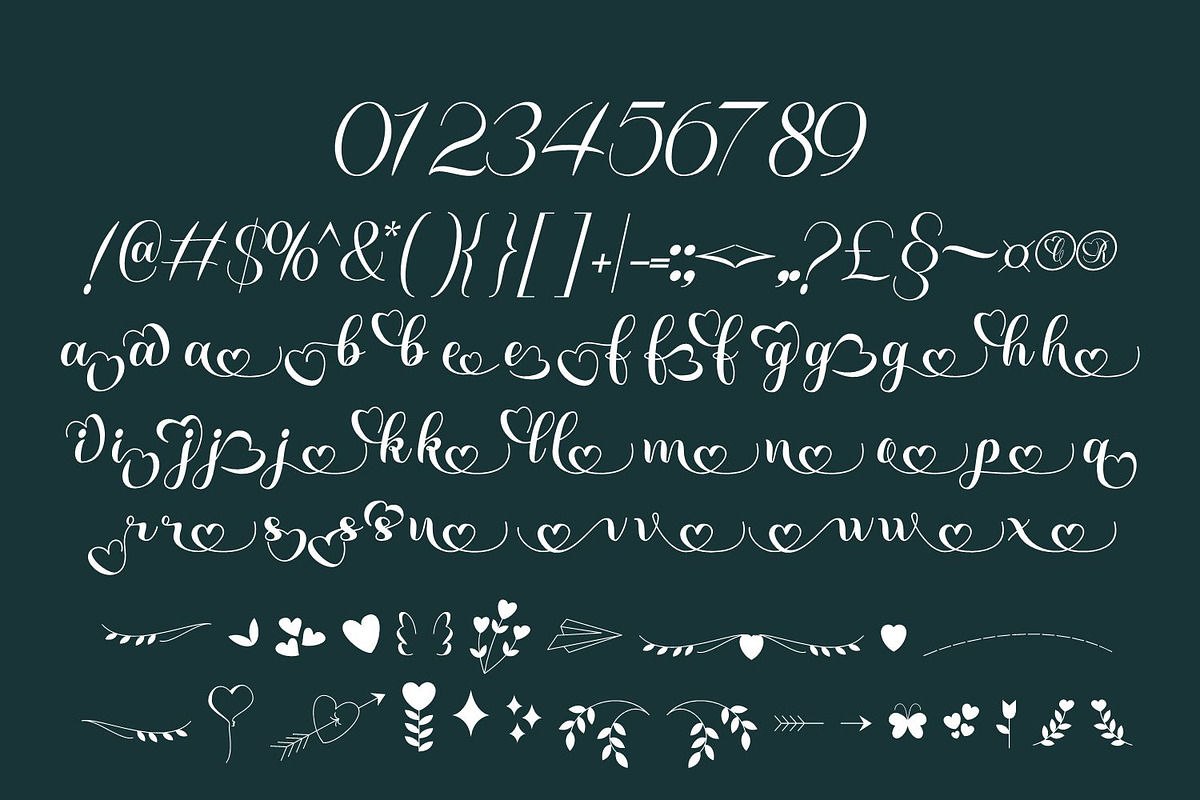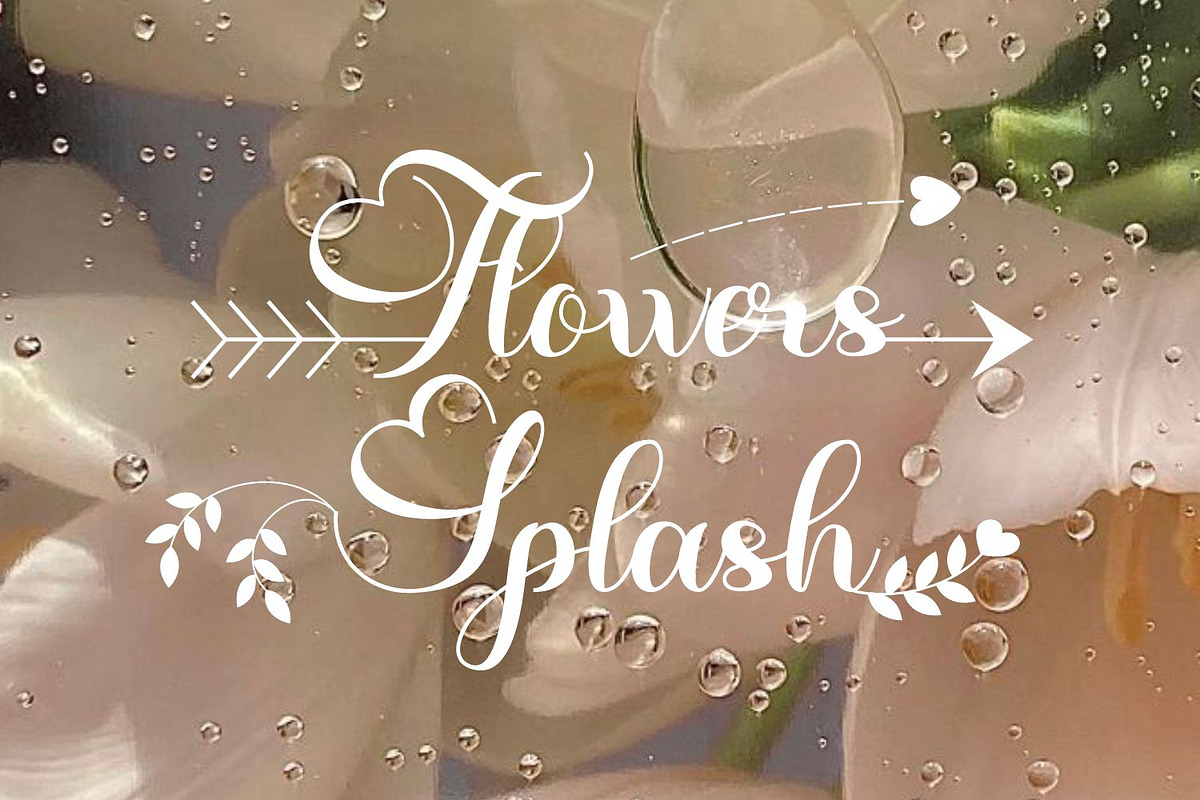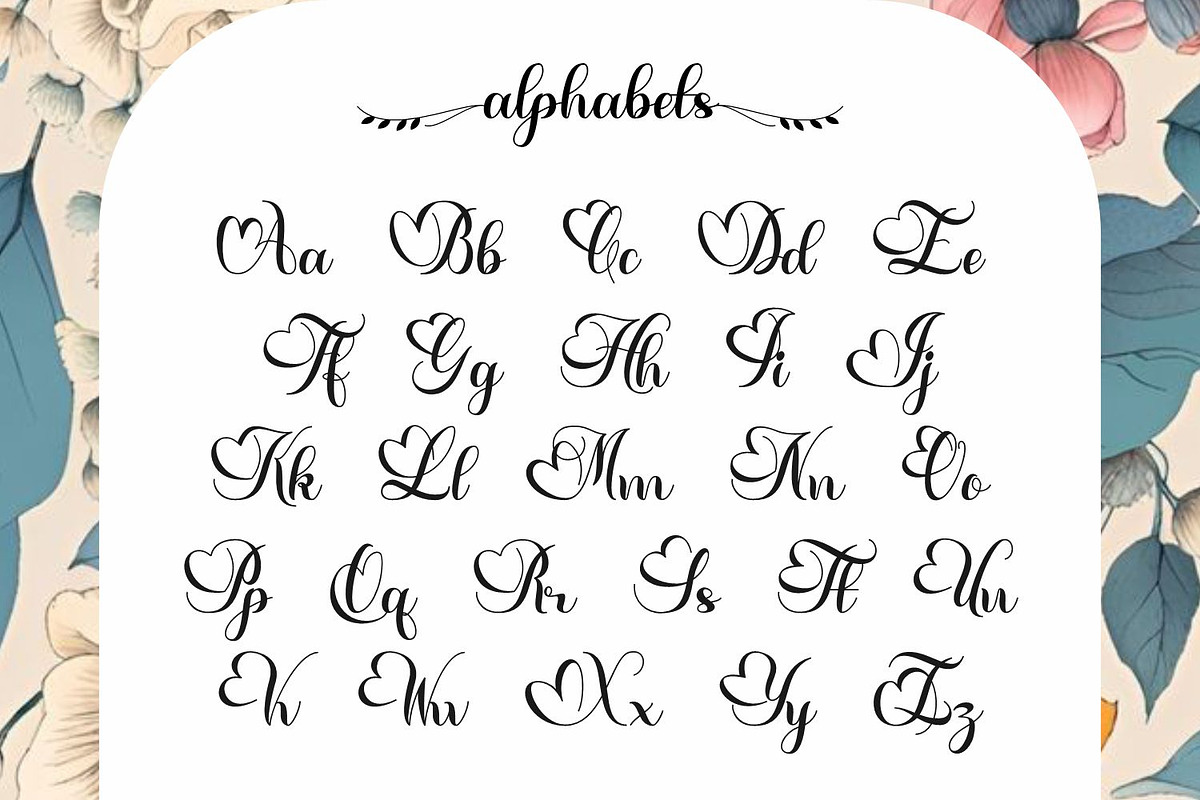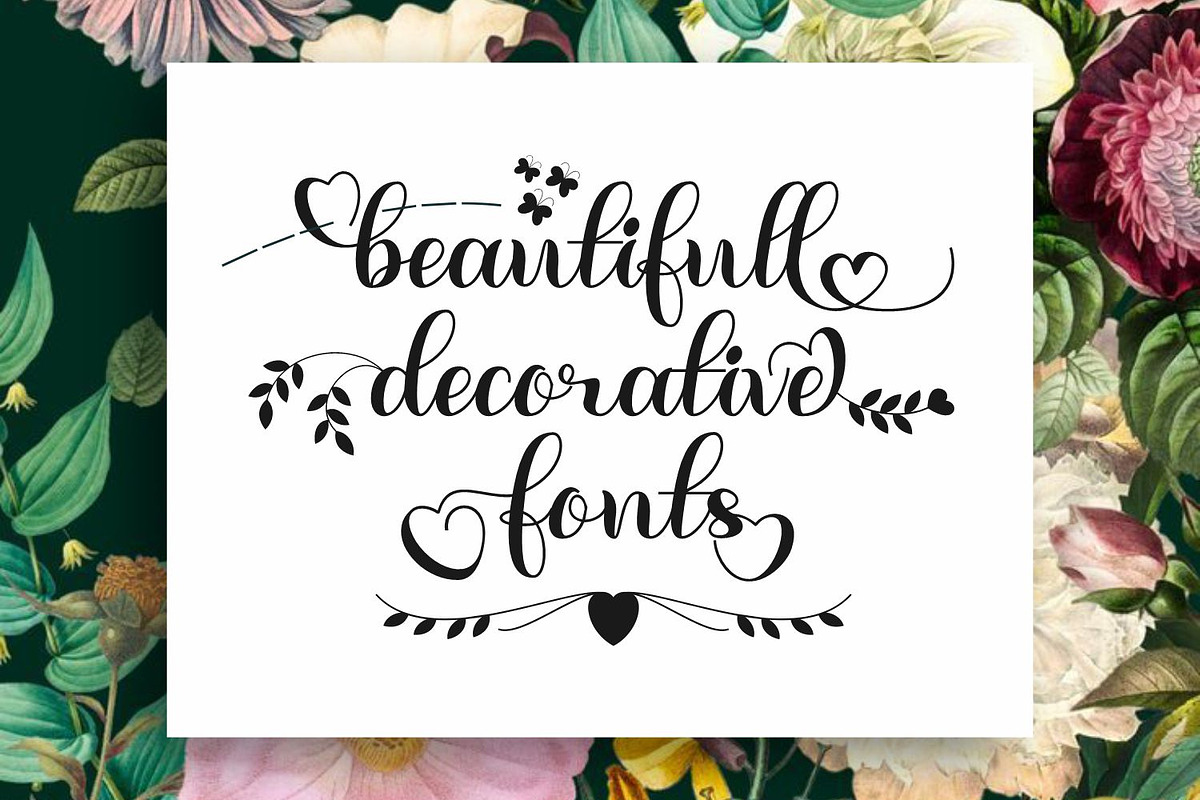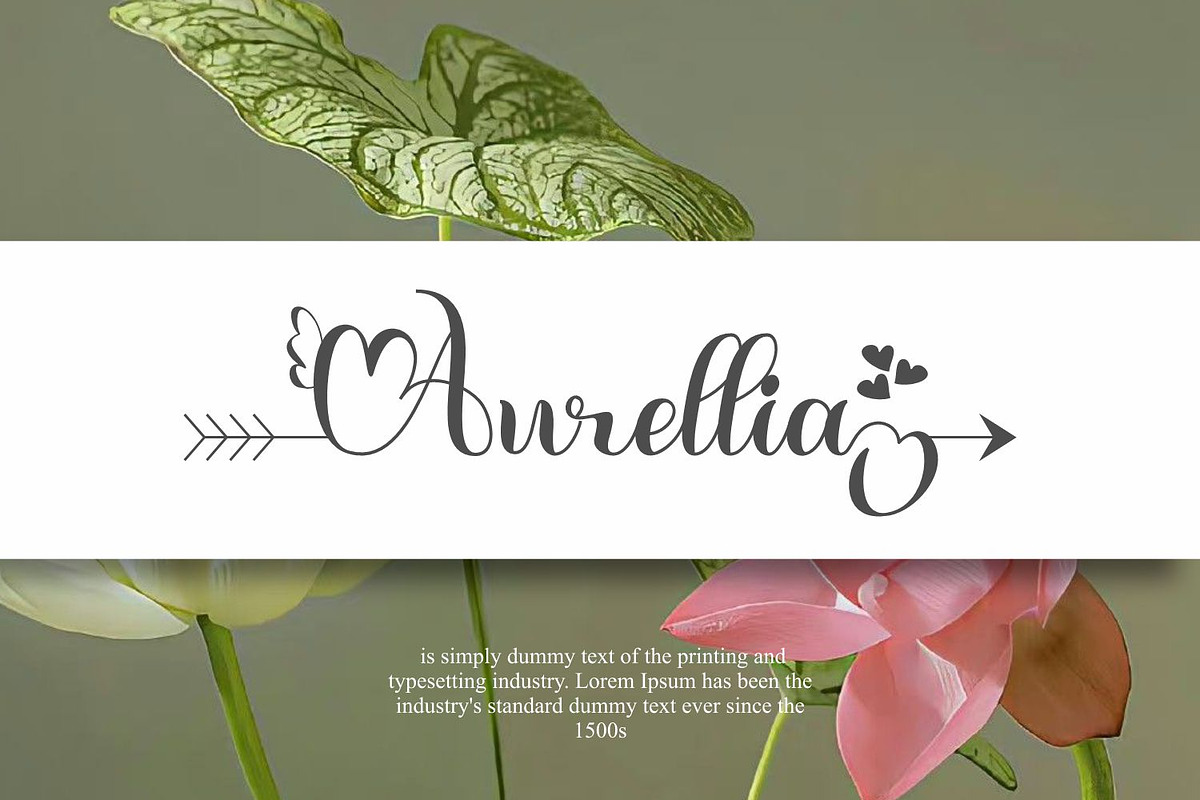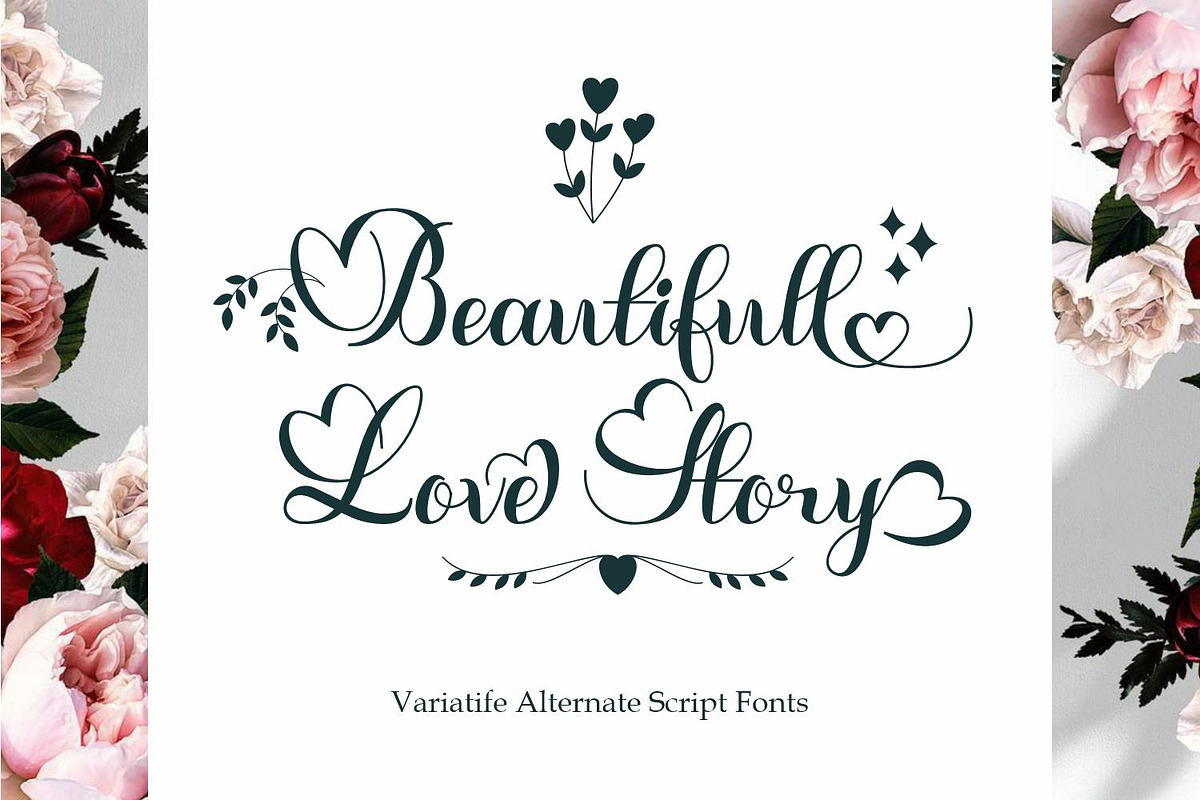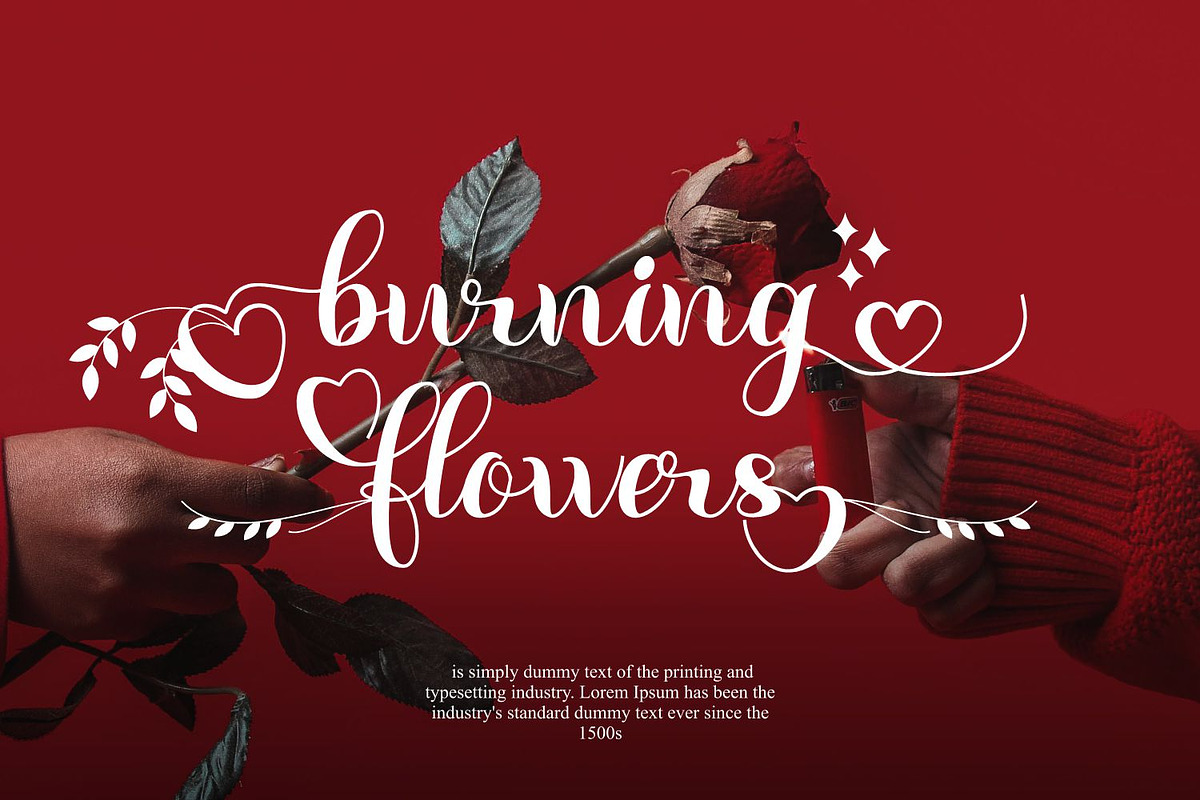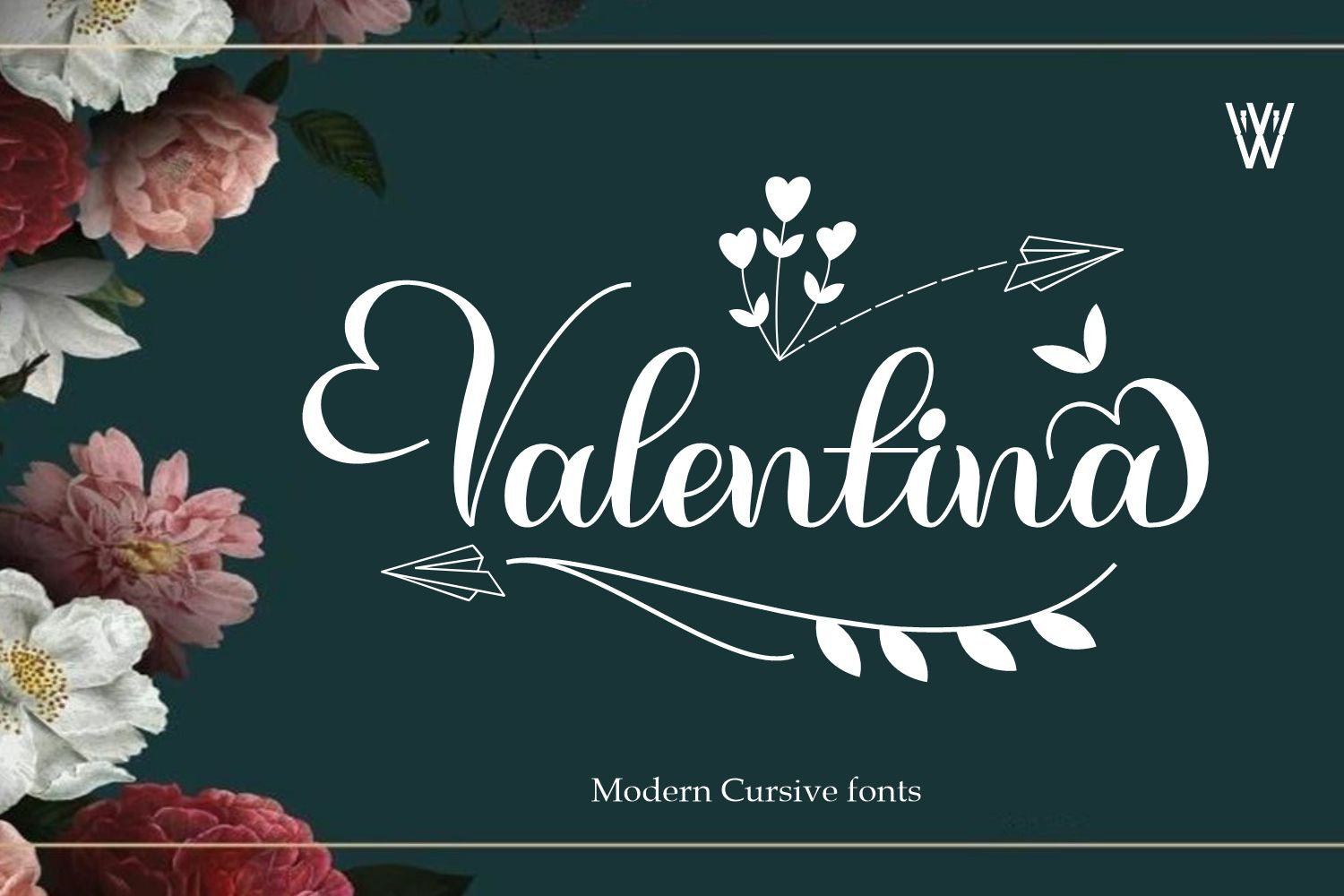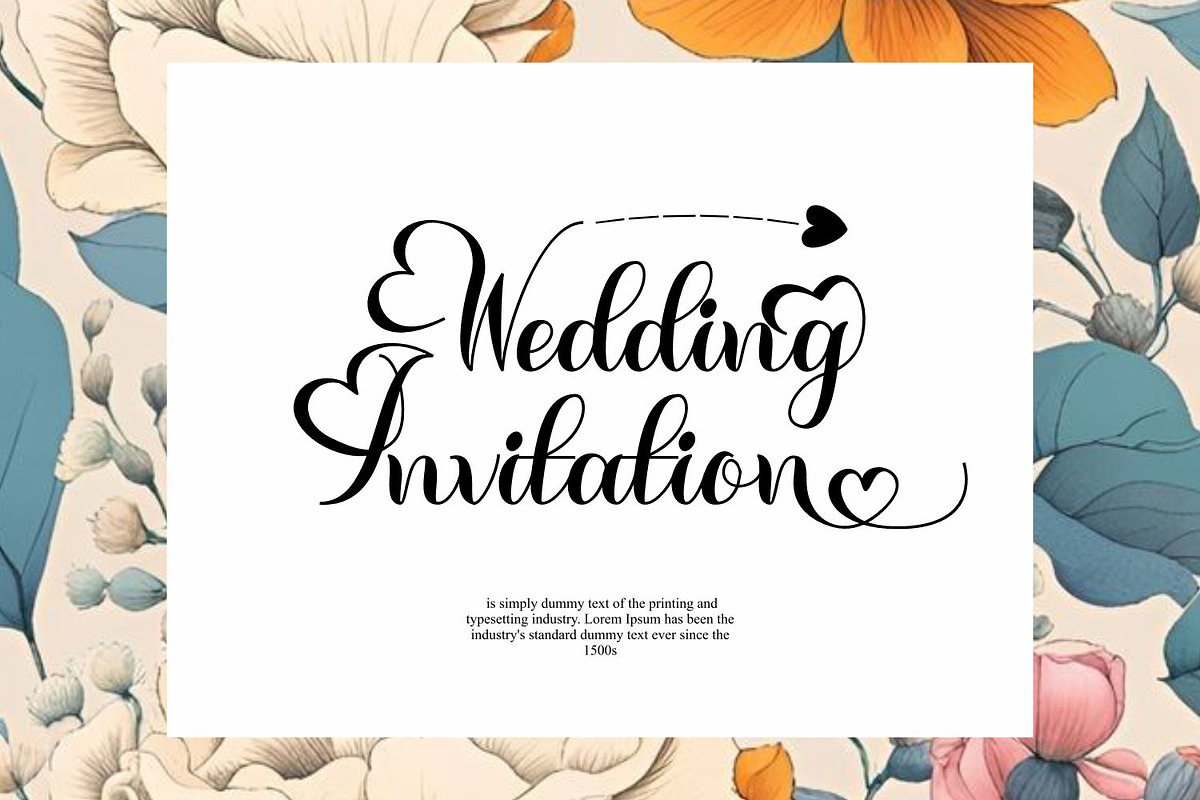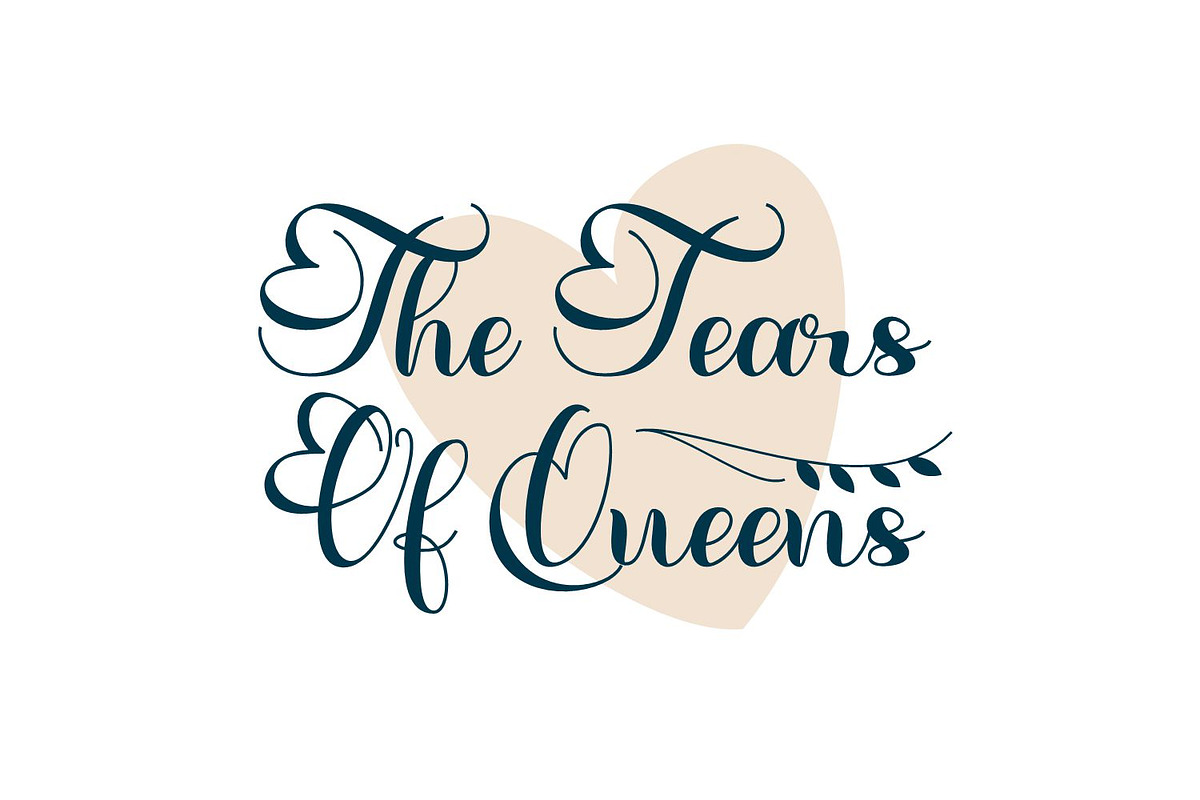
Valentina Cursive font Script Font
The Valentina Font is a graceful and charming cursive script typeface that exudes elegance and sophistication in every stroke. With its flowing lines and delicate curves, this font brings a sense of romanticism and beauty to any design project. Whether you’re creating wedding invitations, love letters, or feminine branding materials, the Valentina Font adds a touch of timeless charm that captivates the viewer. Its versatility and graceful appearance make it perfect for conveying emotions and adding a sense of refinement to your designs.